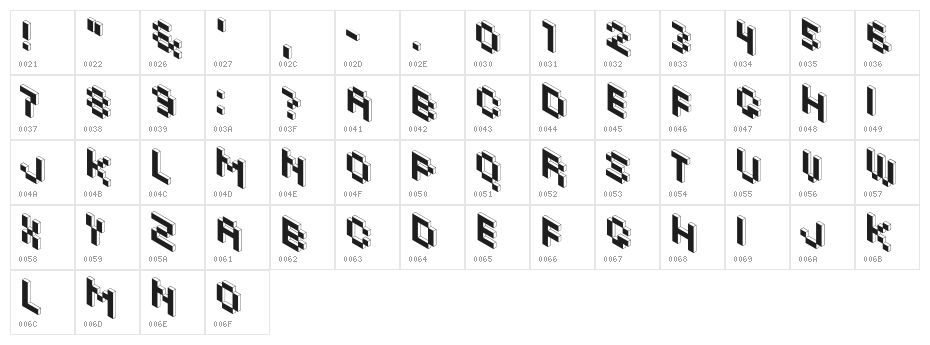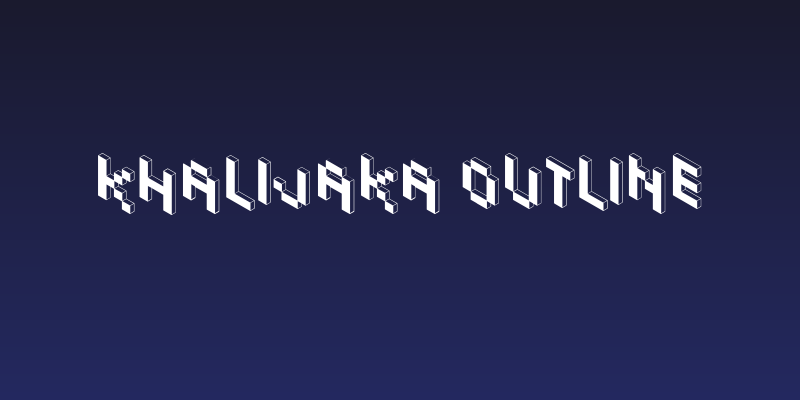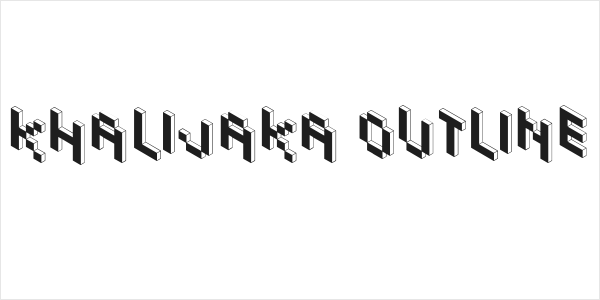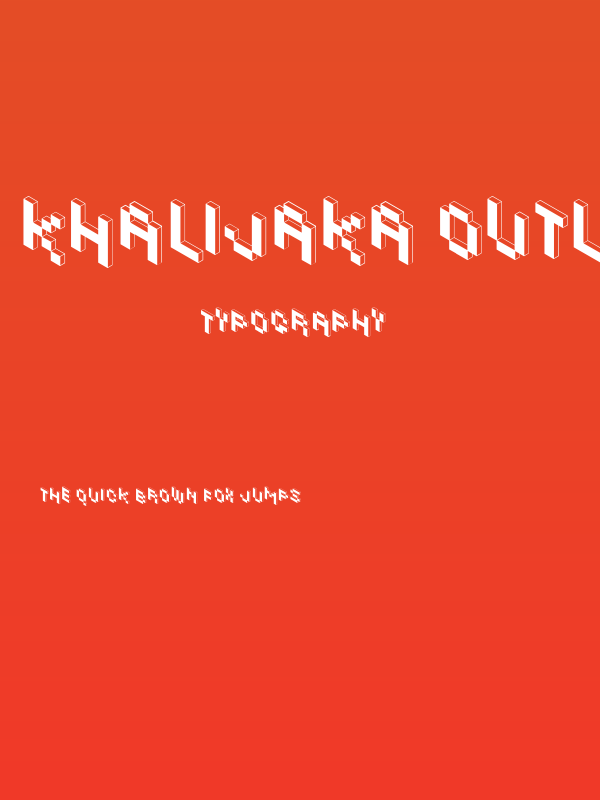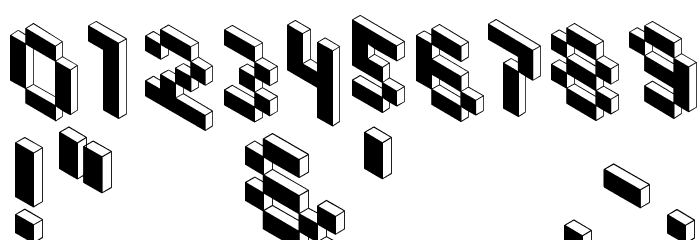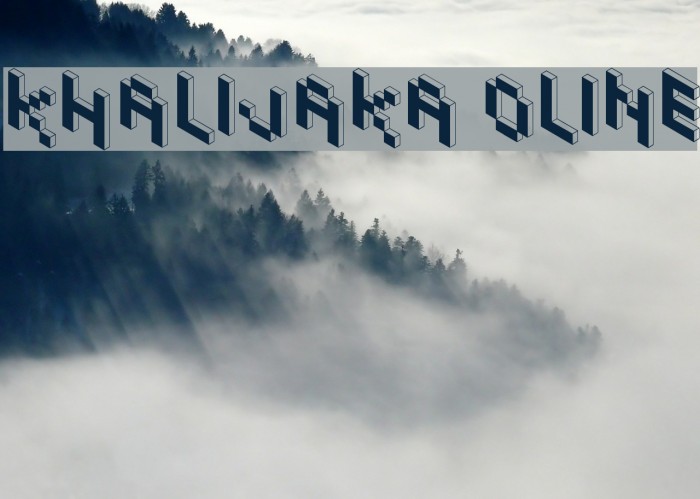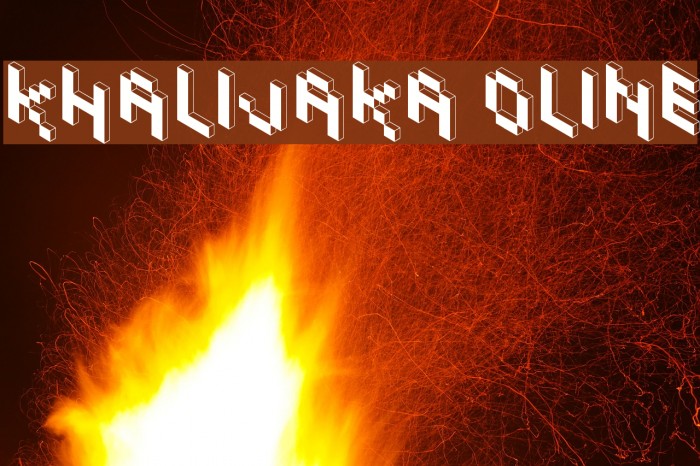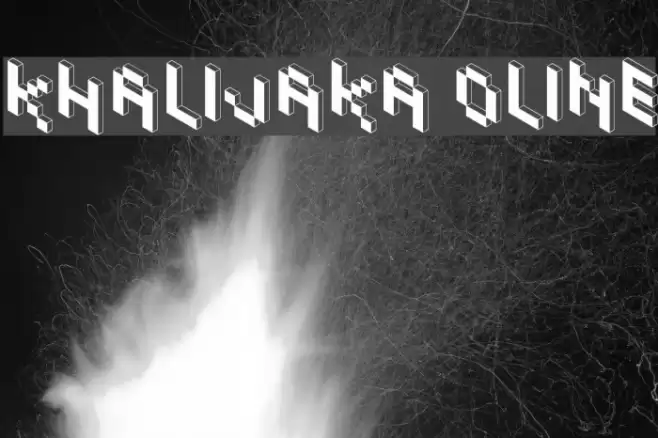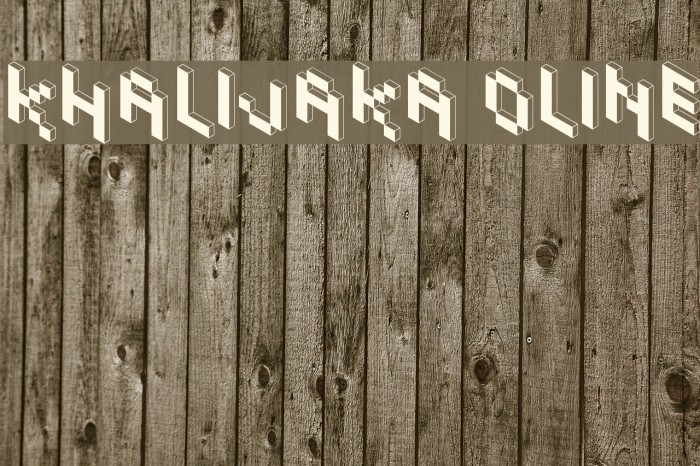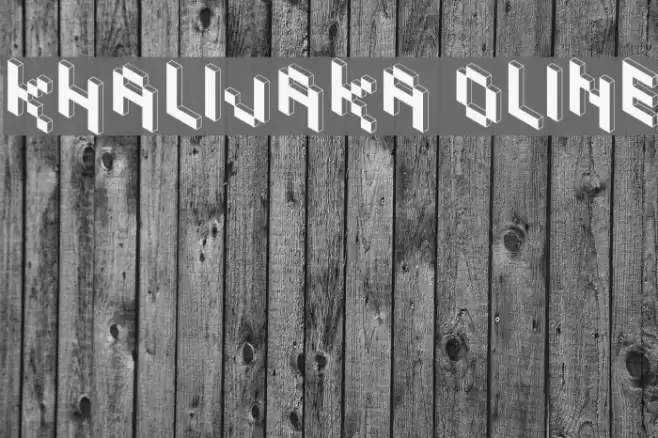
Khalijaka Outline Font
Khalijaka Outline Description
This font features a bold, three-dimensional outline style that gives each character a striking, block-like appearance. The letters and numbers are designed with a geometric precision, creating a sense of depth and structure. The use of shadows and outlines enhances the 3D effect, making the characters appear as if they are popping off the page. This font is highly decorative and eye-catching, suitable for projects that require a strong visual impact. The characters are uniformly spaced, maintaining a consistent look across all text. The overall style is modern and dynamic, perfect for creative and innovative design projects.